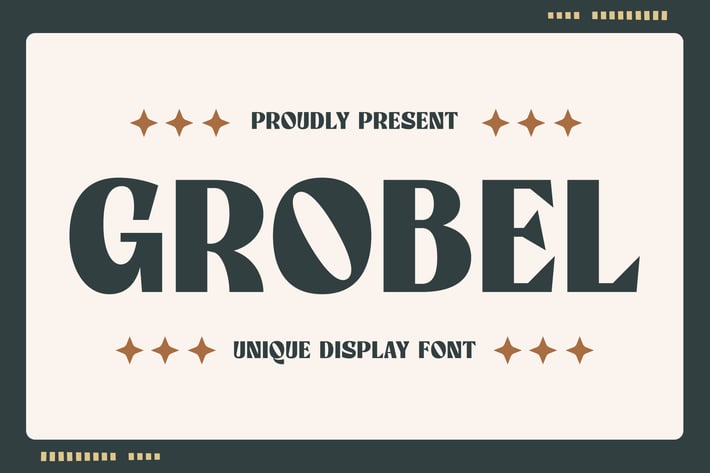
Grobel - Unique Display Font
Introducing "Grobel" - a unique display font that captivates with its distinctive personality and creative flair, offering endless possibilities for your design projects.
With its unconventional letterforms and artistic details, "Grobel" stands out as a truly original typeface that adds a touch of individuality to any design. Whether you're crafting logos, posters, packaging, or website headers, this font brings a sense of creativity and innovation to your projects.
Embrace the uniqueness of "Grobel" as it effortlessly enhances your designs. With its bold and expressive style, this font allows you to break free from convention and unleash your creativity, ensuring that your designs make a memorable impression.
Step into the world of creative typography with "Grobel" and let your imagination soar with its unique and inspiring design.